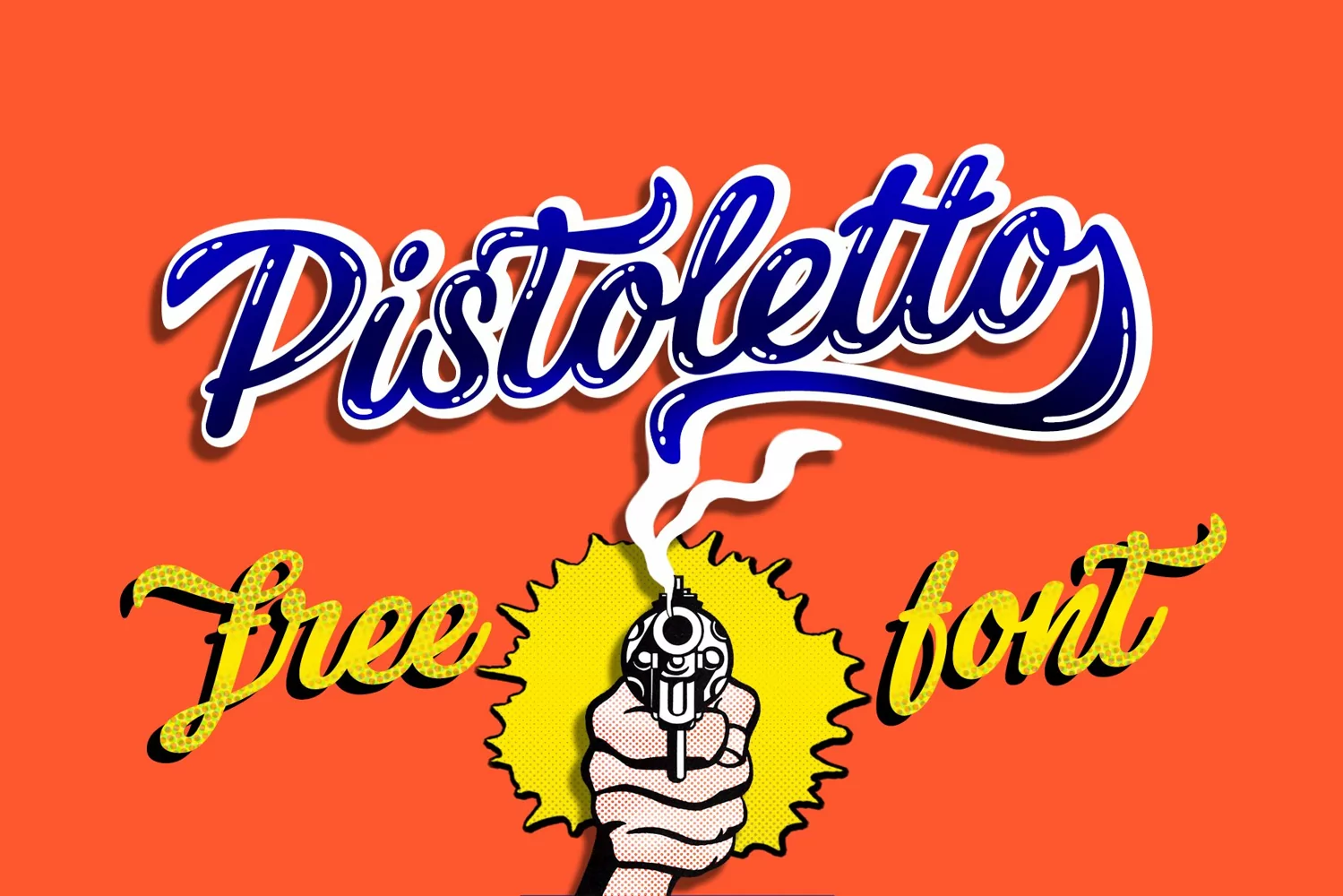
Pistoletto is a lovingly and carefully hand drawn brush script font. It's ultra modern and super cool appearance comes from the smooth curves and thick, bold lettering. It has a retro street style. For the free portion of Pistoletto, you get the caps, lowercase, numbers a few punctuation marks. Design some awesomely rad text with Pistoletto.